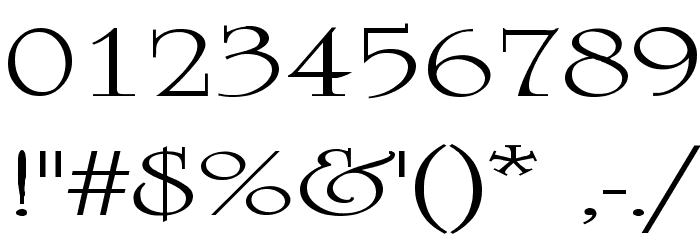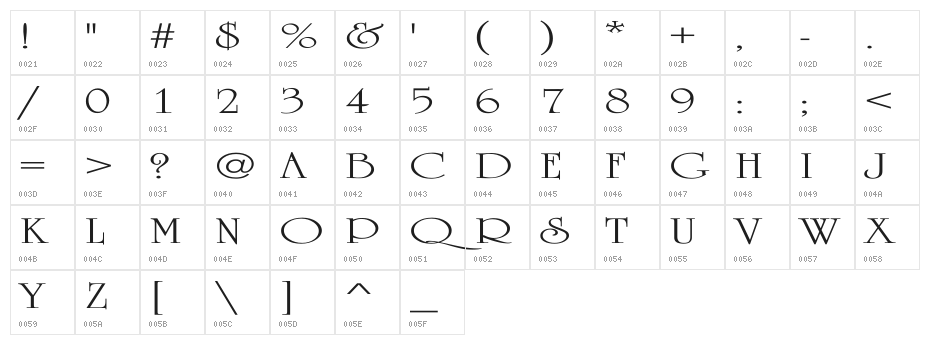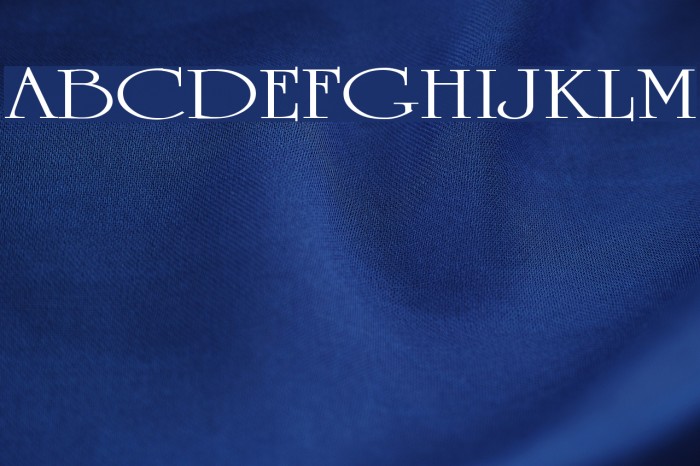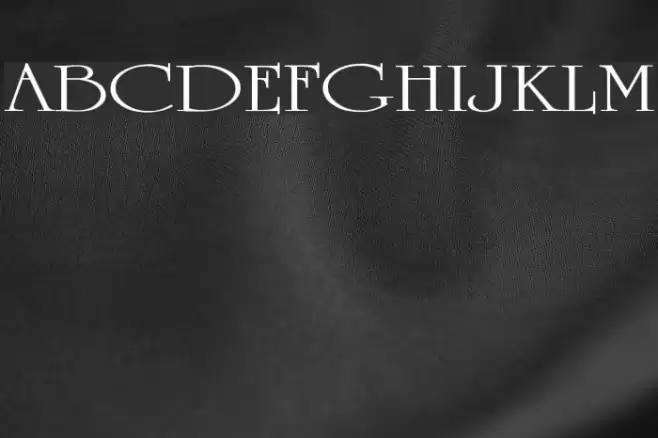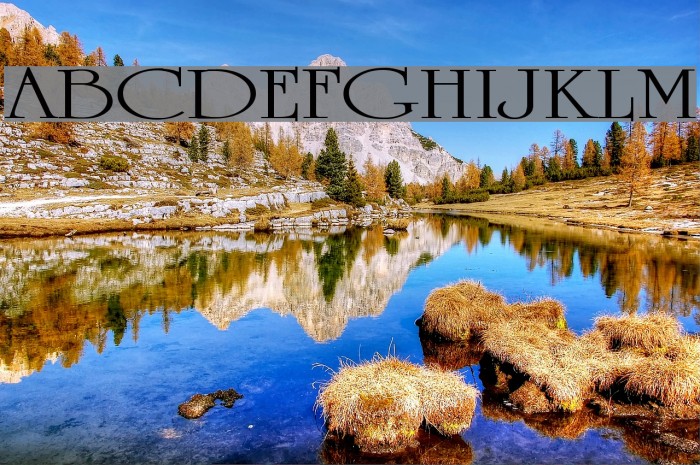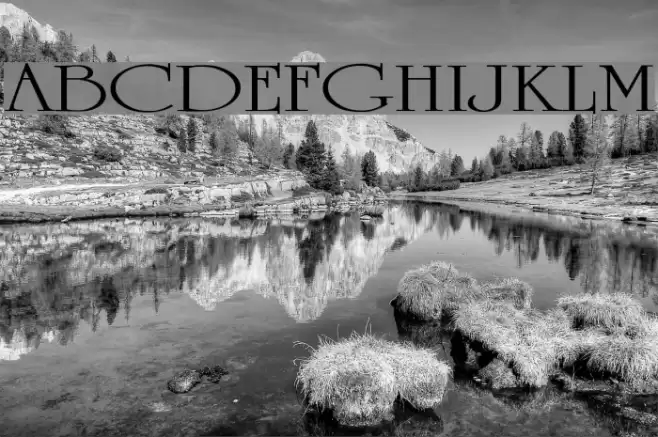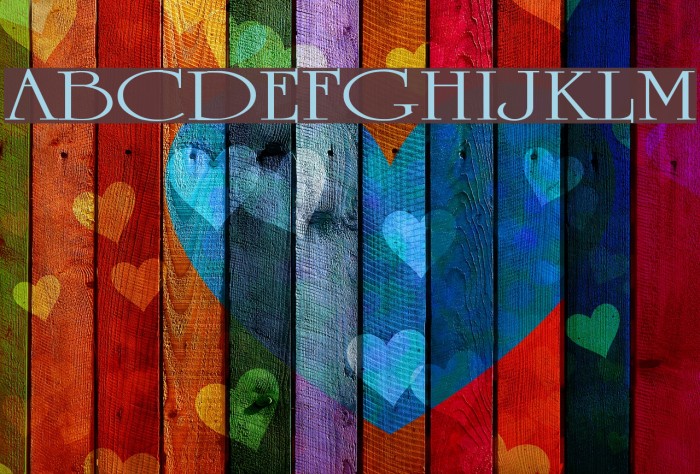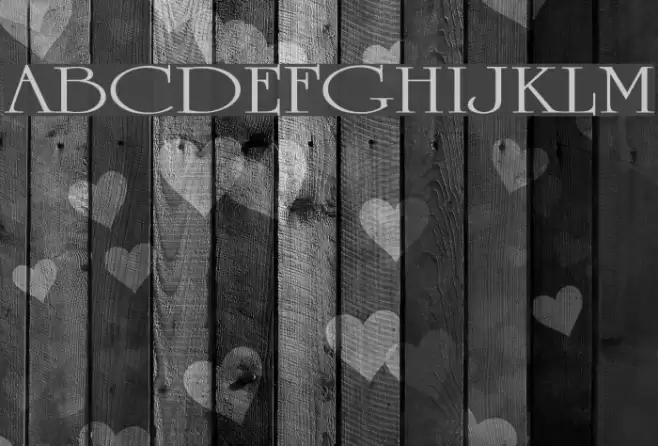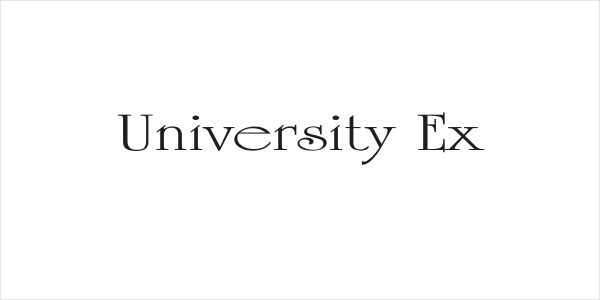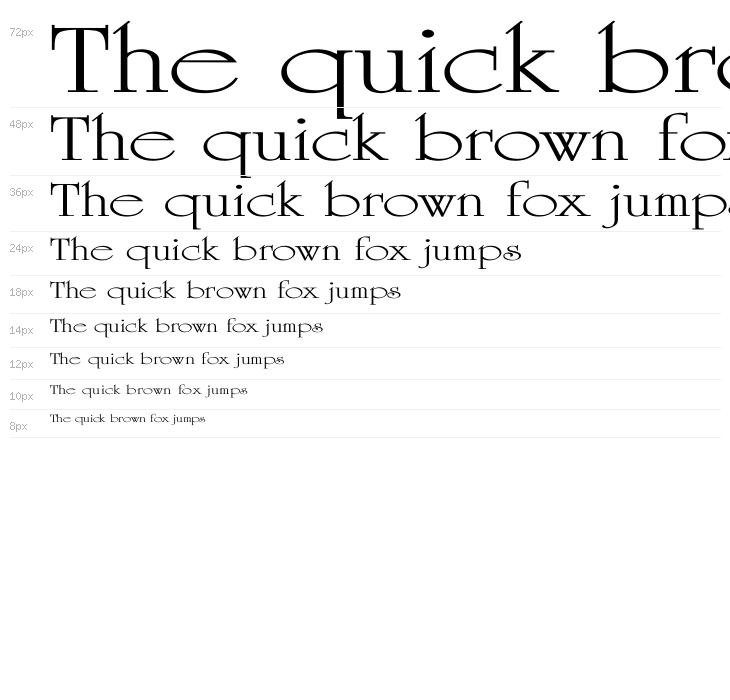
University Ex Font
University Ex Description
This font exudes a classic elegance with its serif style, characterized by thin and sharp serifs that add a touch of sophistication. The uppercase letters are bold and commanding, while the lowercase letters maintain a refined and balanced appearance. The numerals are clear and distinct, making them easily readable. Special characters are designed with a consistent style, ensuring uniformity across different text elements. The overall design is reminiscent of traditional typefaces, yet it maintains a modern appeal that makes it versatile for various applications.